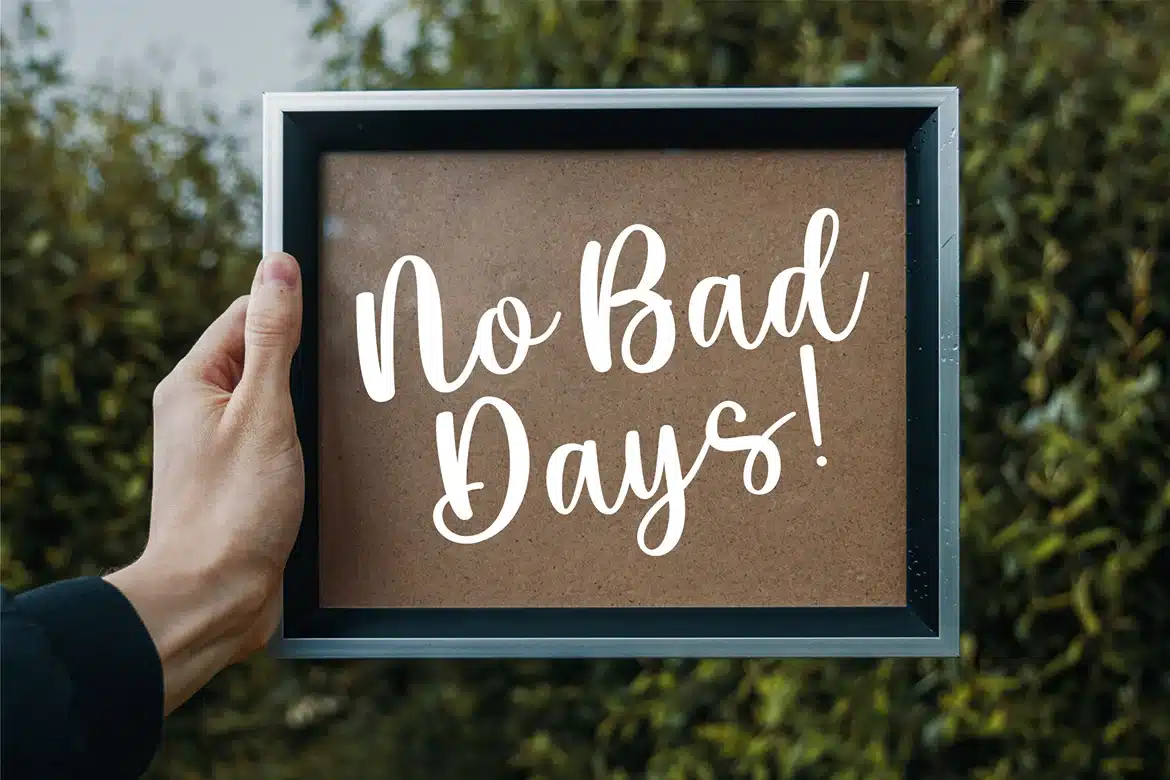
Matilda Symphony Font
Introducing Matilda Symphony, a captivating modern calligraphy font designed to elevate your creative expressions, especially perfect for Valentine's Day cards and romantic projects. With an extensive character set of glyphs, this font is a versatile toolkit for crafting heartfelt messages and enchanting designs.
Key Features:
Stylistic Alternates: Explore a variety of letterforms, adding a touch of individuality and charm to your text.
Stylistic Sets 01: Unleash your creativity with curated stylistic sets, allowing you to customize and personalize your typography.
Ligatures: Enhance the fluidity of your writing with ligatures that create seamless connections between letters, ensuring a smooth and graceful appearance.
Crafted with love and precision, Matilda Symphony is the perfect companion for designing romantic Valentine's Day cards, love notes, and expressions of affection.